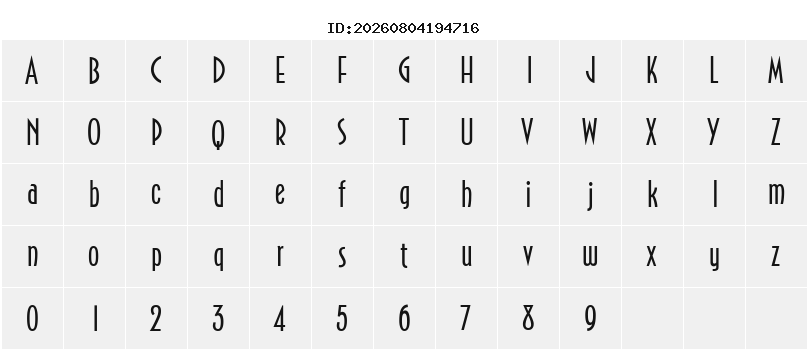
• Font Name: NewportClassicSG
• Full Font Name: NewportClassicSG-Regular
• PostScript Name: NewportClassicSG-Regular
• Copyright: Newport Classic Regular - Copyright 1994 Spiece Graphics. All rights reserved.
• Manufacturer: Spiece Graphics
About NewportClassicSG.ttf
NewportClassicSG.ttf is a modern, elegant sans-serif font designed for ultimate readability and visual harmony. Perfect for branding, headlines, web design, and print materials.